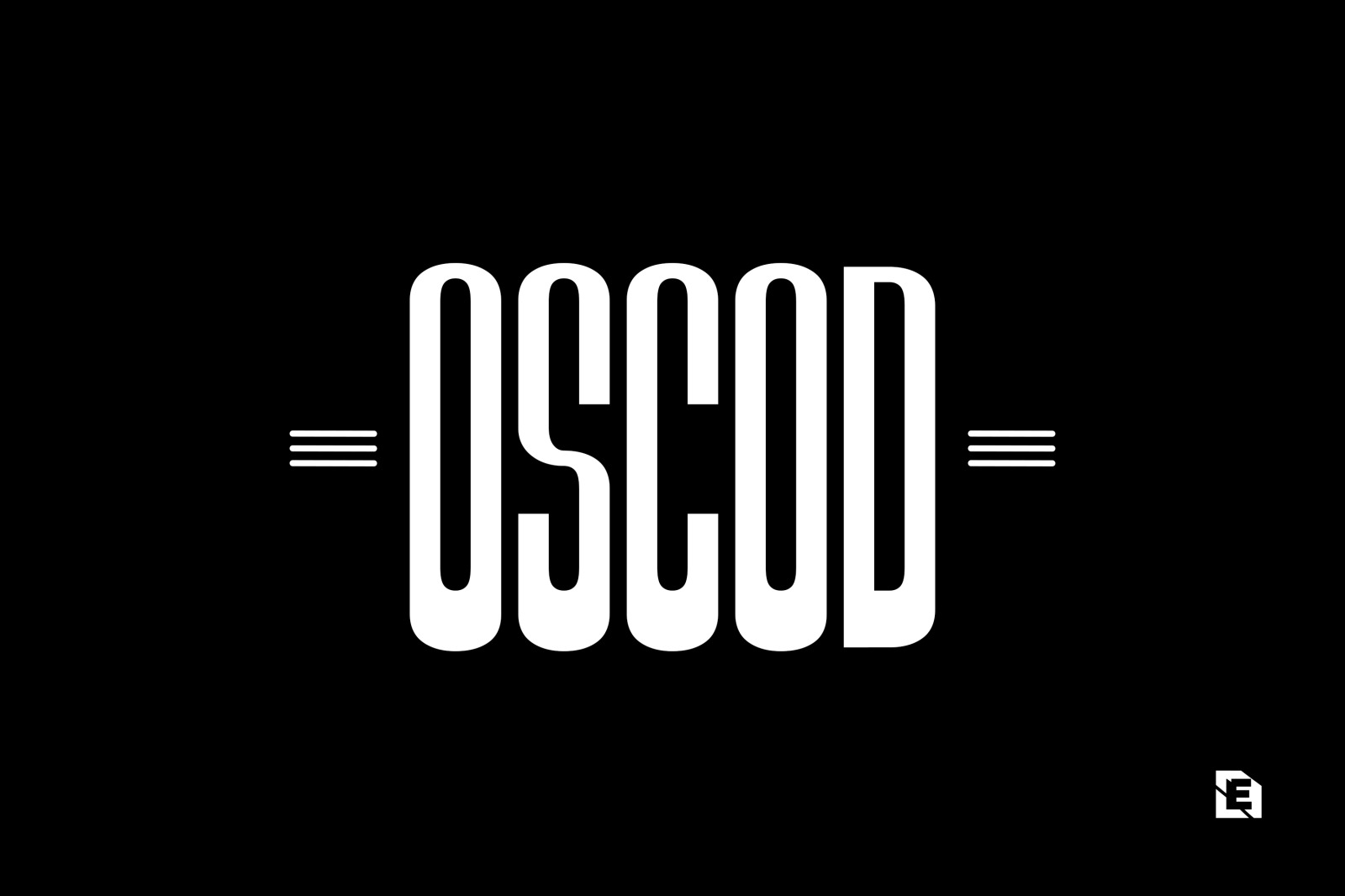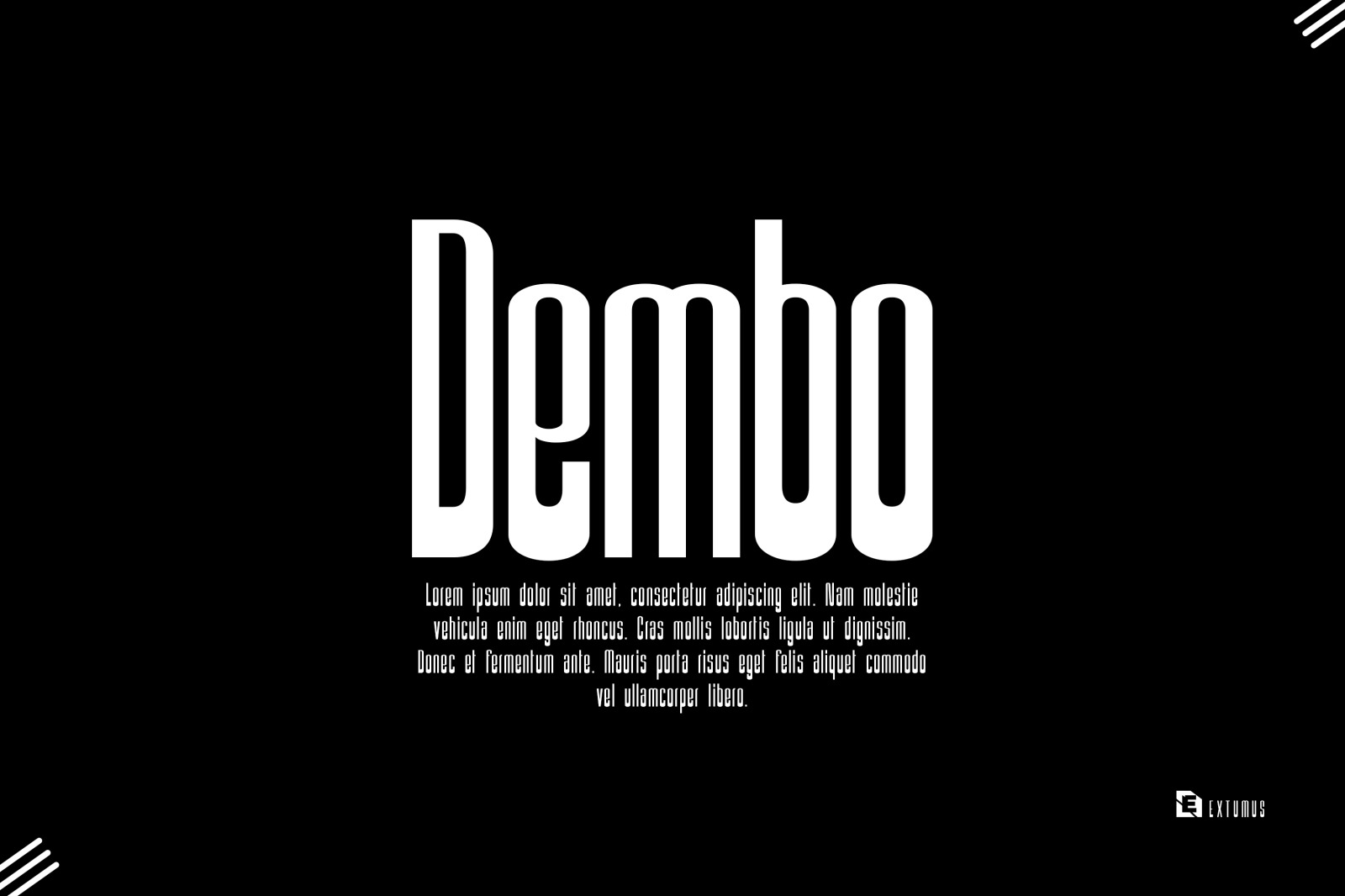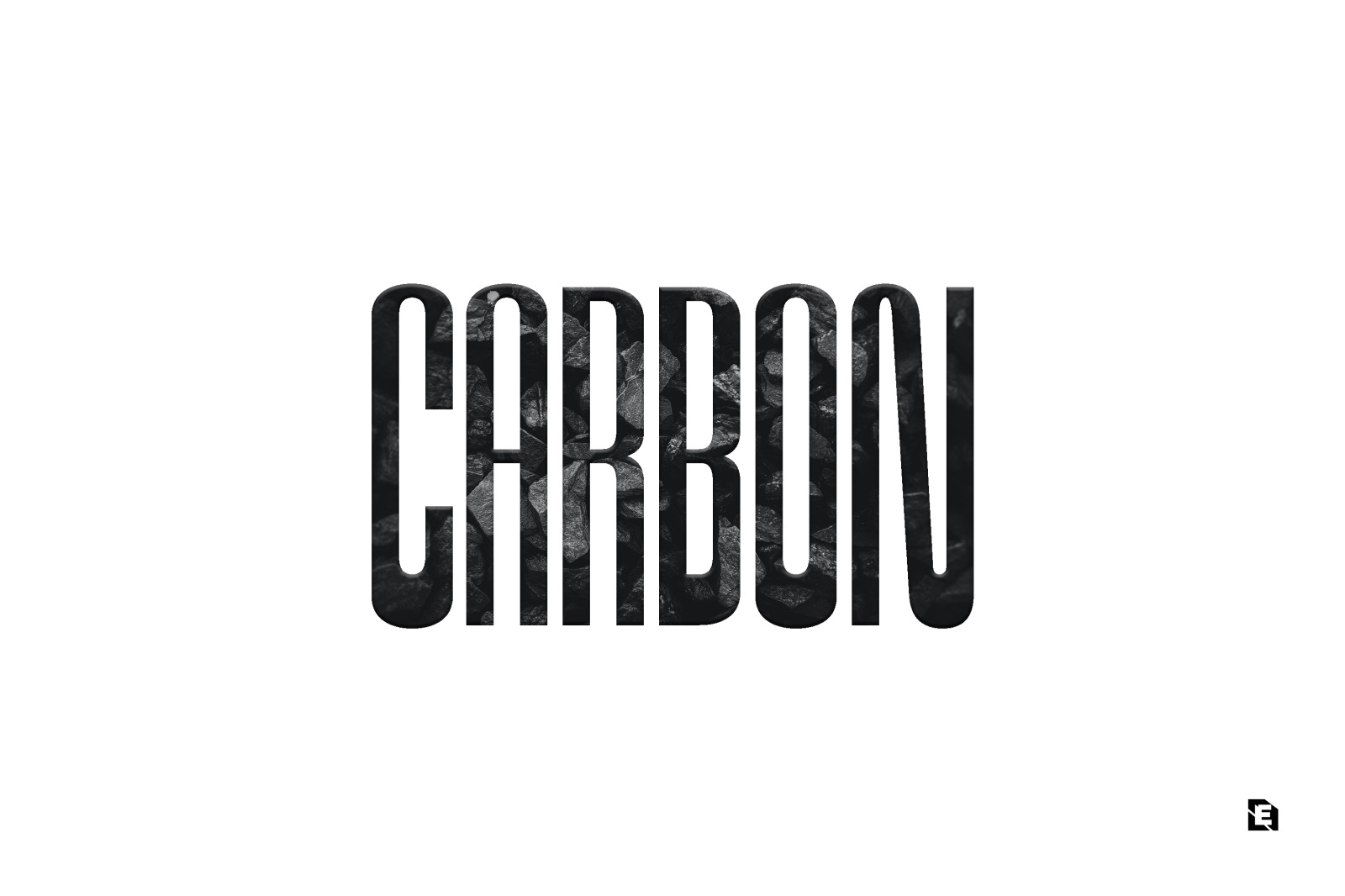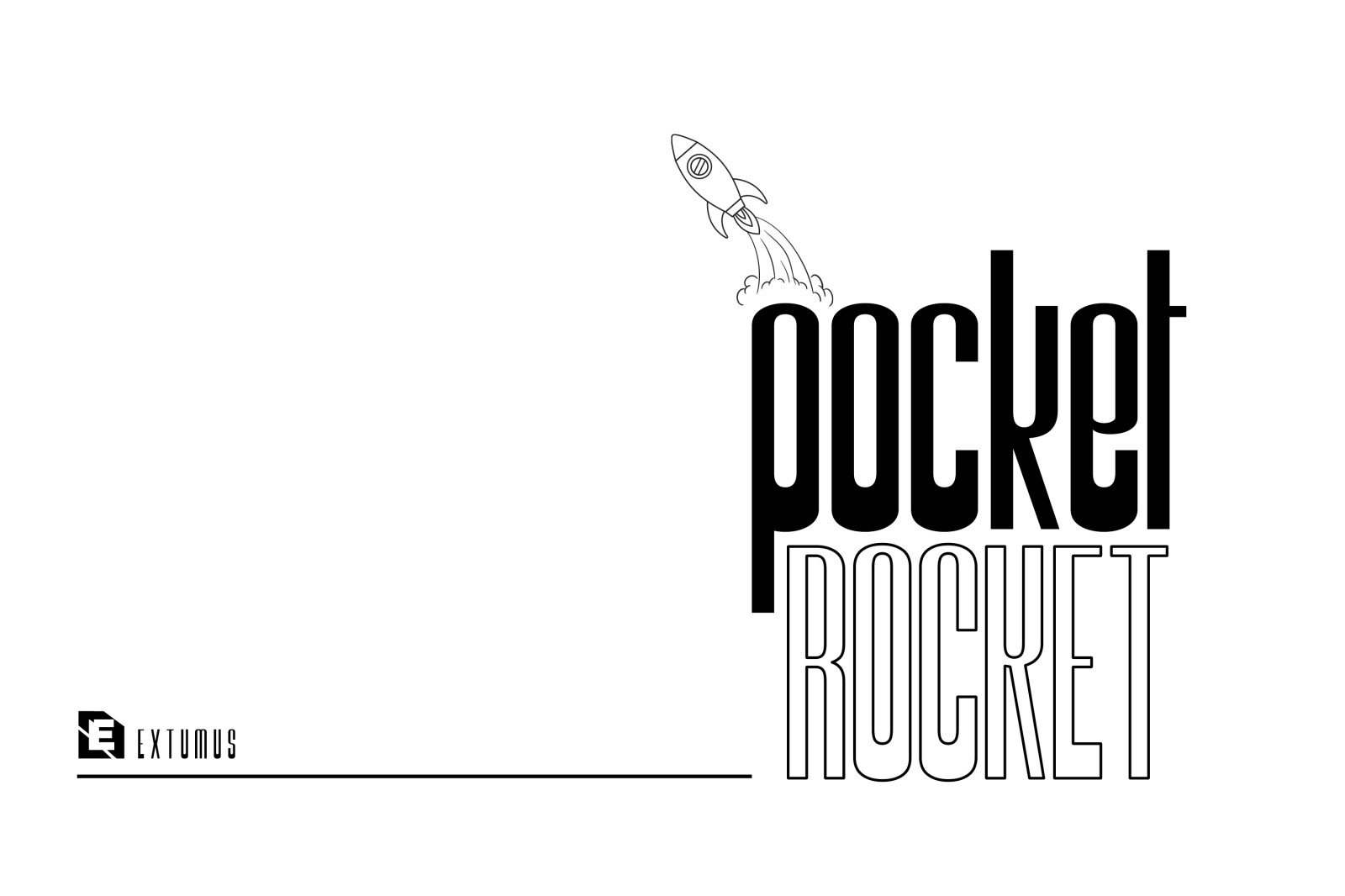
Oscod Font
Oscod is a unique and modern display typeface perfect for headlines, big text, branding, logotypes & display usage. This font is the perfect choice for outstanding logos, promotional content, and marketing graphics. You can also use it for creating unique monograms, logos, and identities with these combinations.